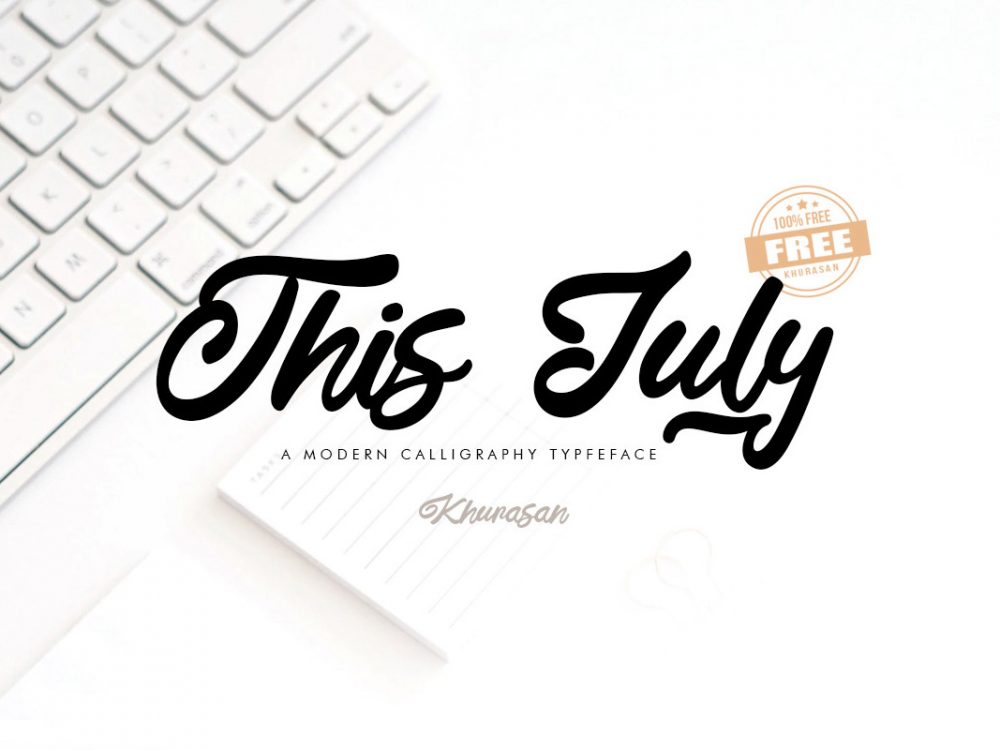
This July Script Free Font
This July Script Free Font is an interesting font that is different in that it was created using hand-drawn characters. This font also has an elegant style and is perfect for posters, greeting cards, wedding invitations, flyers, prints, and more.